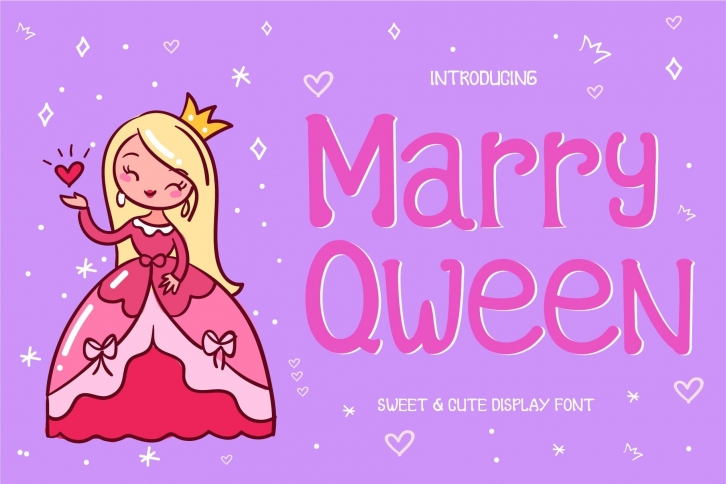
Marry Qween is a handicraft font. Marry Qween can be used for products such as handcraft, product packaging, quotes, product design, craftsmen, labels, photography, watermarks, logos & branding. Everything can be accessed using software that supports Opentype, such as Adobe Indesign, Adobe CS Illustrator, Adobe Photoshop CC, and Corel Draw.